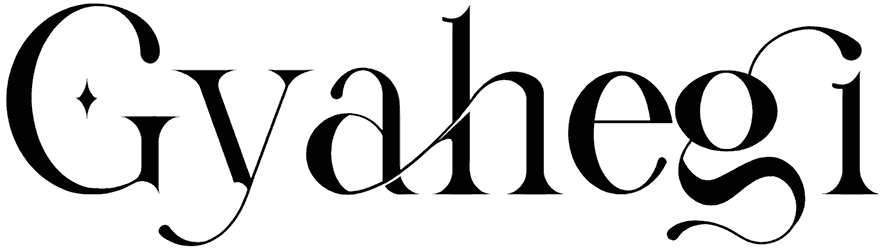
Gyahegi Font
It’s not possible to look for sophistication and elegance in your content, and you don’t consider a serif font as the primary choice. With that said take Gyahegi as an example and see how it would change around your context into something that you wanted from the start.
The downside is that this ligature serif font has symbols instead of numbers and a few punctuation marks, however, it comes with an unparalleled design for both uppercase and lowercase.